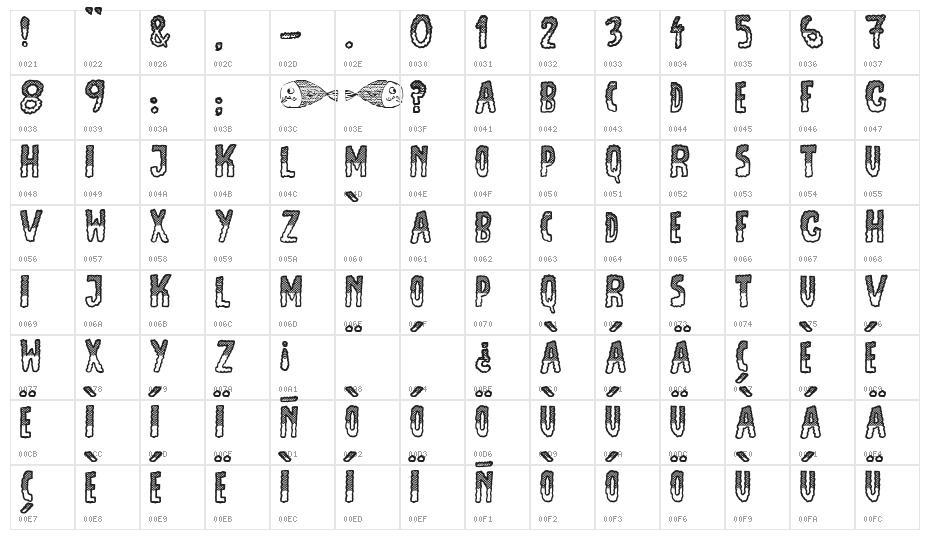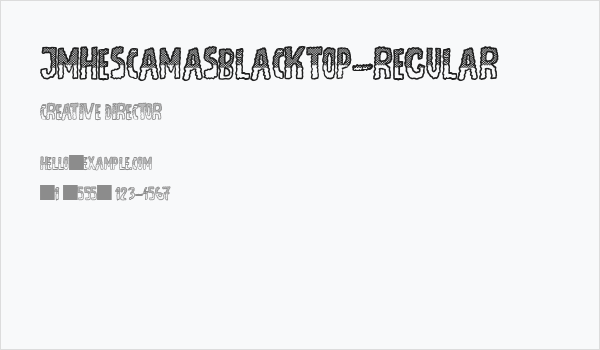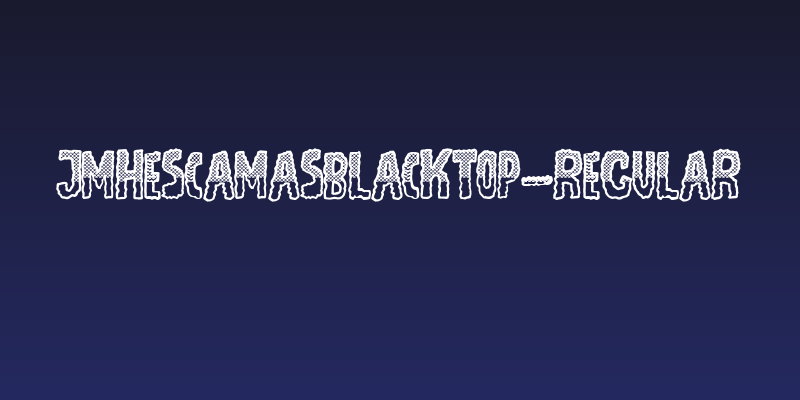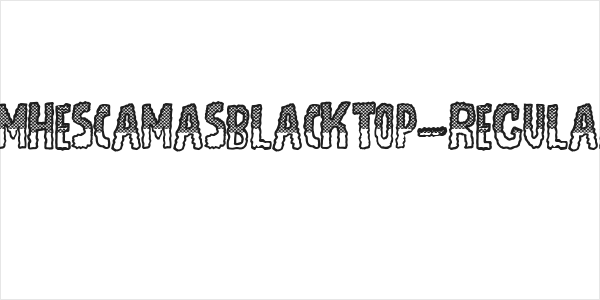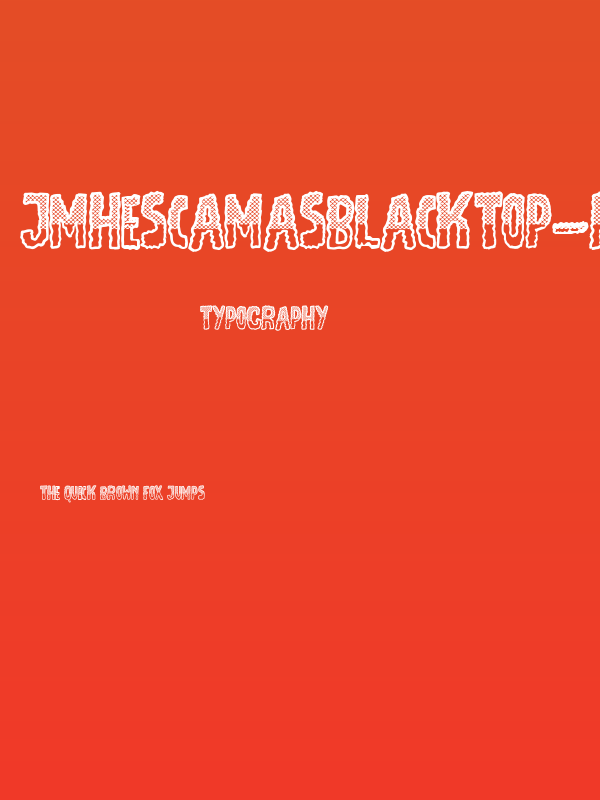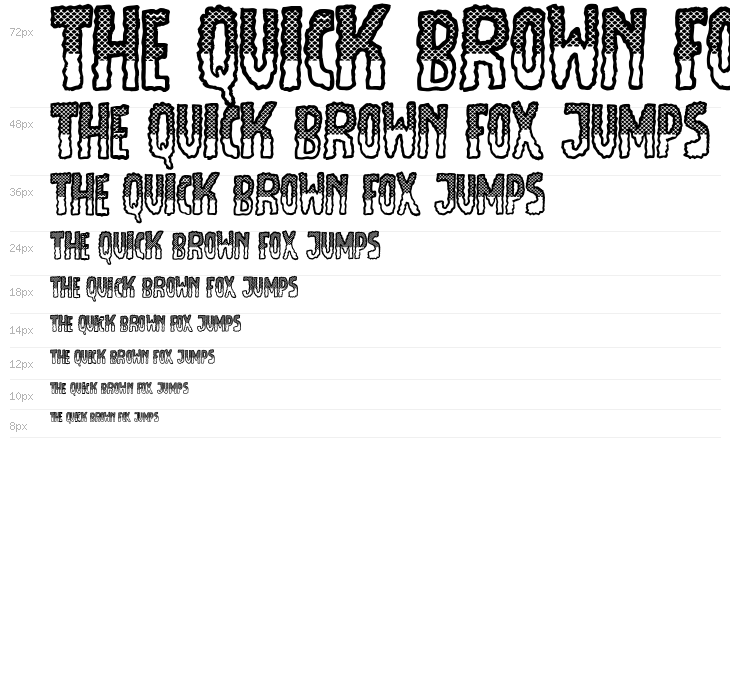
JMHEscamasBlackTop-Regular Font
JMHEscamasBlackTop-Regular Description
This font features a bold, decorative style with a unique textured pattern filling each character. The letters have a playful, wavy outline that gives them a dynamic and eye-catching appearance. The uppercase and lowercase letters maintain a consistent design, with the uppercase being slightly larger and more pronounced. Numbers and special characters follow the same stylistic approach, ensuring a cohesive look across all elements. The font's distinct texture and bold outline make it stand out, ideal for projects that require a fun and engaging visual impact.
| Proposed Projects | Ideal for posters, event flyers, children's book covers, and creative branding projects. |